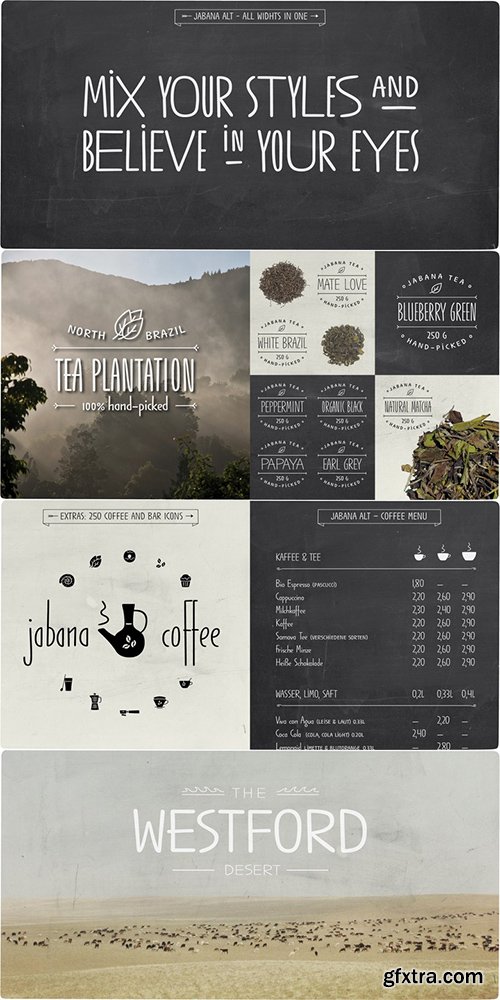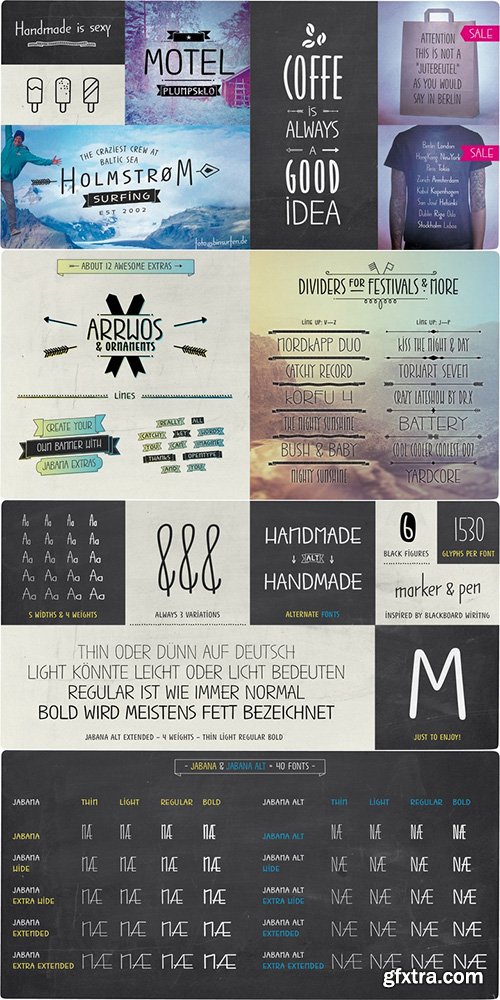
Jabana Alt Font Family - 20 Fonts $146
- Jabana Alt is the much more standard looking brother of Jabana. Each letter is altered and changed. But you can also use it for coffee and more. Because it is inspired by having a “Schorle” at Hamburgs coffee bars. Super compressed and extended letter shapes in 5 widths, smooth handwritten marker curves and especially a wide range of opentype features define the large character set of Jabana Alt.Each letter and punctuation got three simple varieties of alternates. This gives a nice looking handwritten nature to the font. They will be randomly chosen by the contextual alternates feature or even by hand via stylistic set (ss01, ss02).The whole characters for serious western european typography comes along Jabana Alt. Beside the standard accented letters, fractions, mathematical glyphs, superiors and inferiors you will find alternates, extra bullets, different arrows, negative figures and roman numerals.Another reason for the amount of 1530 glyphs are the numerator and denominator letters which came from A-Z, punctuation and the extra bullets (ss09-16). They are meant to be used for decoration or distinction. Especially an opentype stylistic set gives an extra touch to it while putting a dot/line above denominators or underneath numerators (ss03+numr/dnom).If Jabana Alt is too boring for your purpose have a look at “Jabana” (Link). This alternate got some more unique uppercase shapes and a tiny x-height with large descenders for the lowercase.